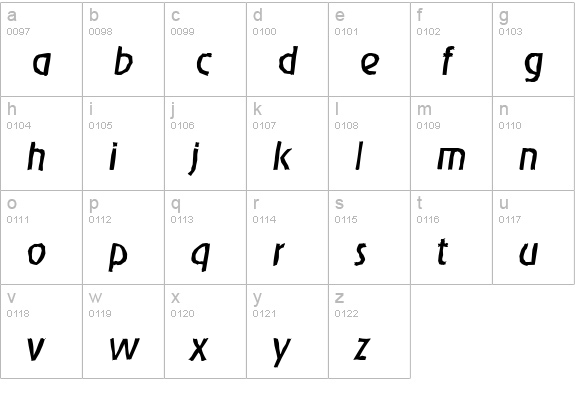
OnStageAntique-Italic Font Details
OnStageAntique-Italic is a distinctive, italic variant in the OnStageAntique typeface family \xE2\x80\x94 well suited to design and typography projects.
OnStageAntique-Italic font exudes a timeless elegance and sophistication, making it the perfect choice for adding a touch of vintage charm to your projects. The delicate slant and intricate detailing of each letter create a captivating visual appeal that is sure to make a statement. Whether you're designing invitations, posters, or branding materials, OnStageAntique-Italic font will elevate your work to new heights. Best of all, OnStageAntique-Italic font is available for free download at FontsMarket.com. Embrace the beauty and grace of this exquisite typeface and bring a touch of old-world glamour to your designs today.